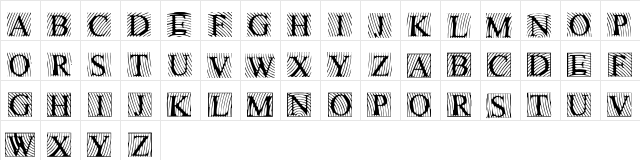
LowEngravedCapsLight Regular
Version1.0 of this twisty and cool engraved font thing
Design Context for LowEngravedCapsLight Typeface
LowEngravedCapsLight is built around its visual character rather than neutral utility — its distinctive forms are designed to make an impression at display sizes. Its slender proportions lend an understated elegance to any composition.
Font Pairing: Pair with a clean neutral sans-serif for body copy to let LowEngravedCapsLight's character lead without overwhelming the composition.
Pro Tip: Treat LowEngravedCapsLight as the centrepiece of your typographic hierarchy. One strong heading set in a decorative face can carry an entire layout.